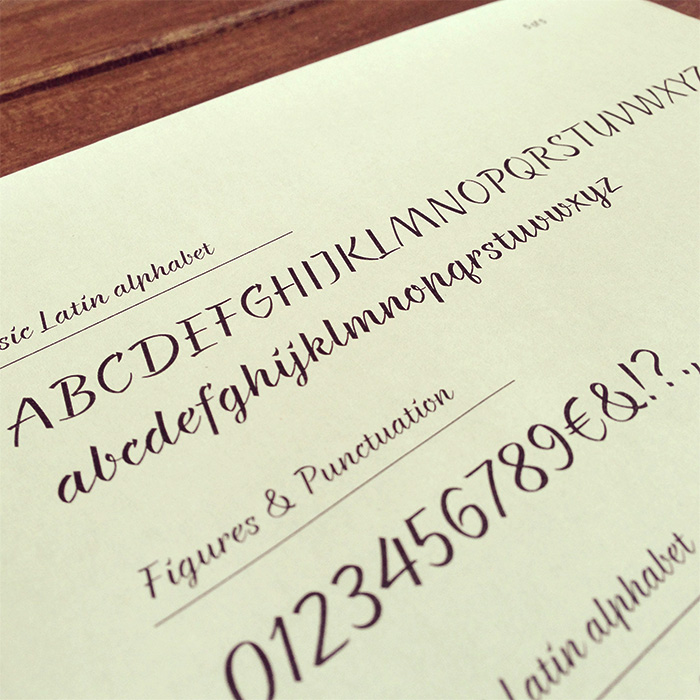
Braxton Font 051Views0ReactionsfontslotsJune 5, 2015 fontslots type foundry presents Braxton – a brush flavored script free font! One style (Normal) available for direct free download only DOWNLOAD Tags: fashionFontfontsFreeFree Download FontFree Fontshand drawnhandwritingSanstypographyTwitterFacebookTelegramWhat's your reaction?0Smile0Lol0Wow0Love0Sad0Angry